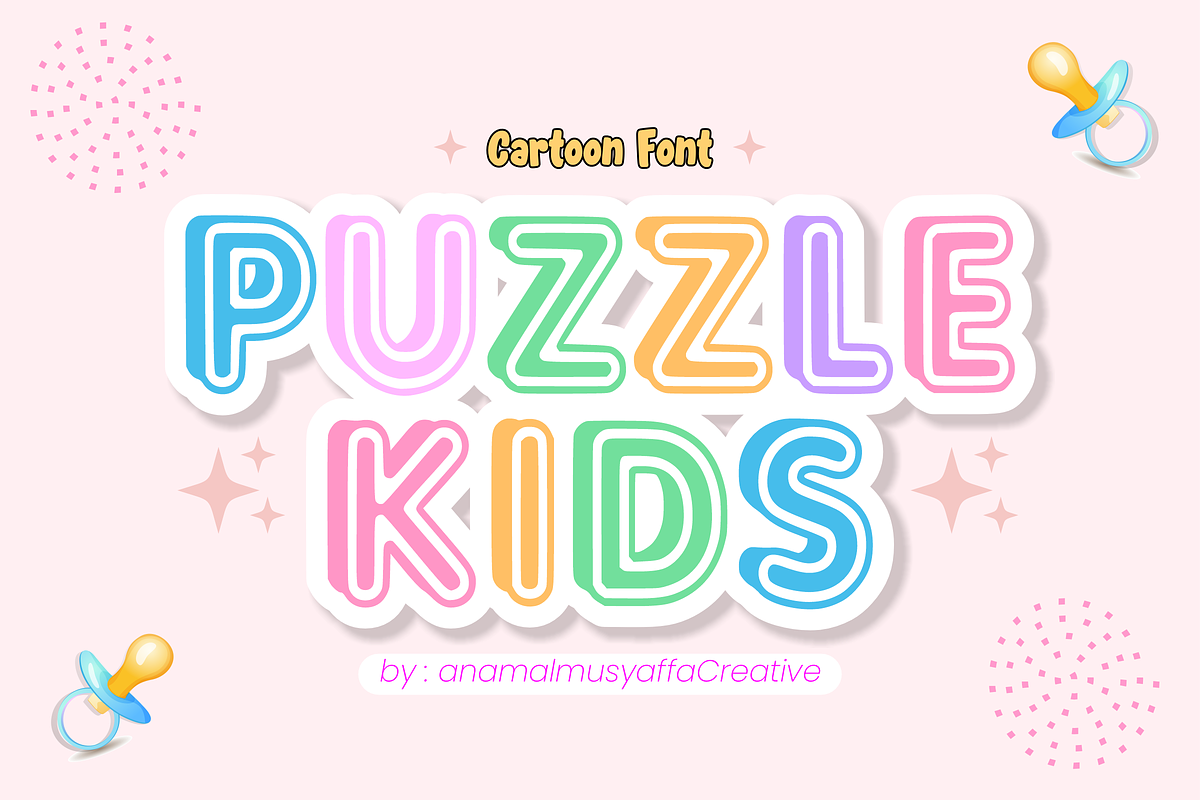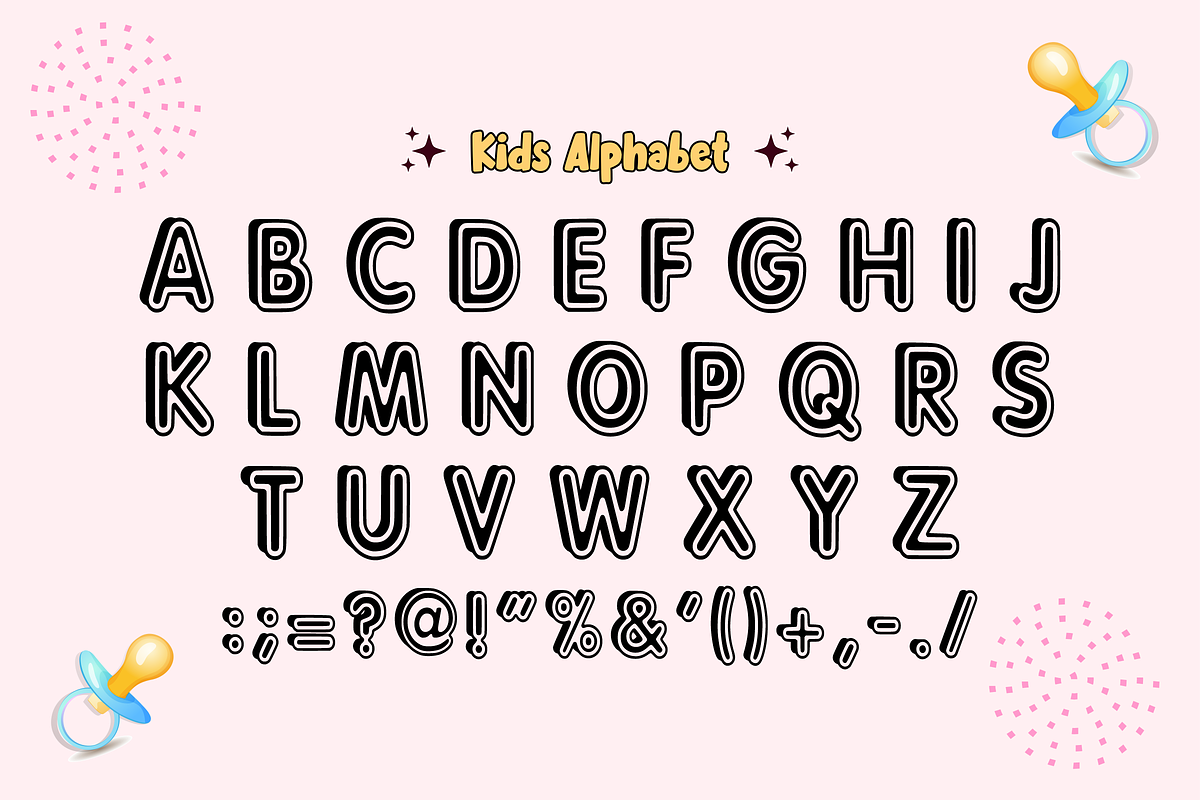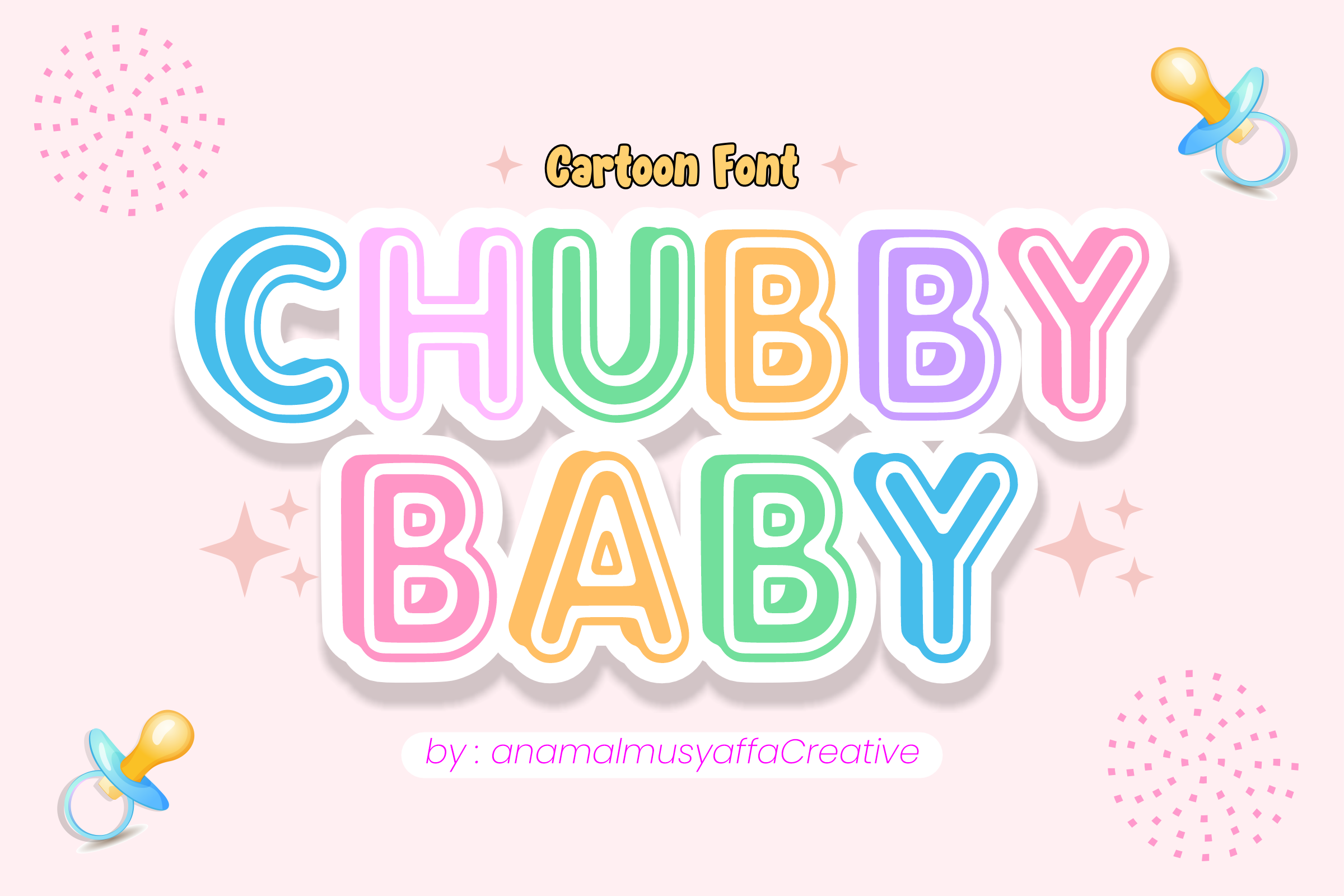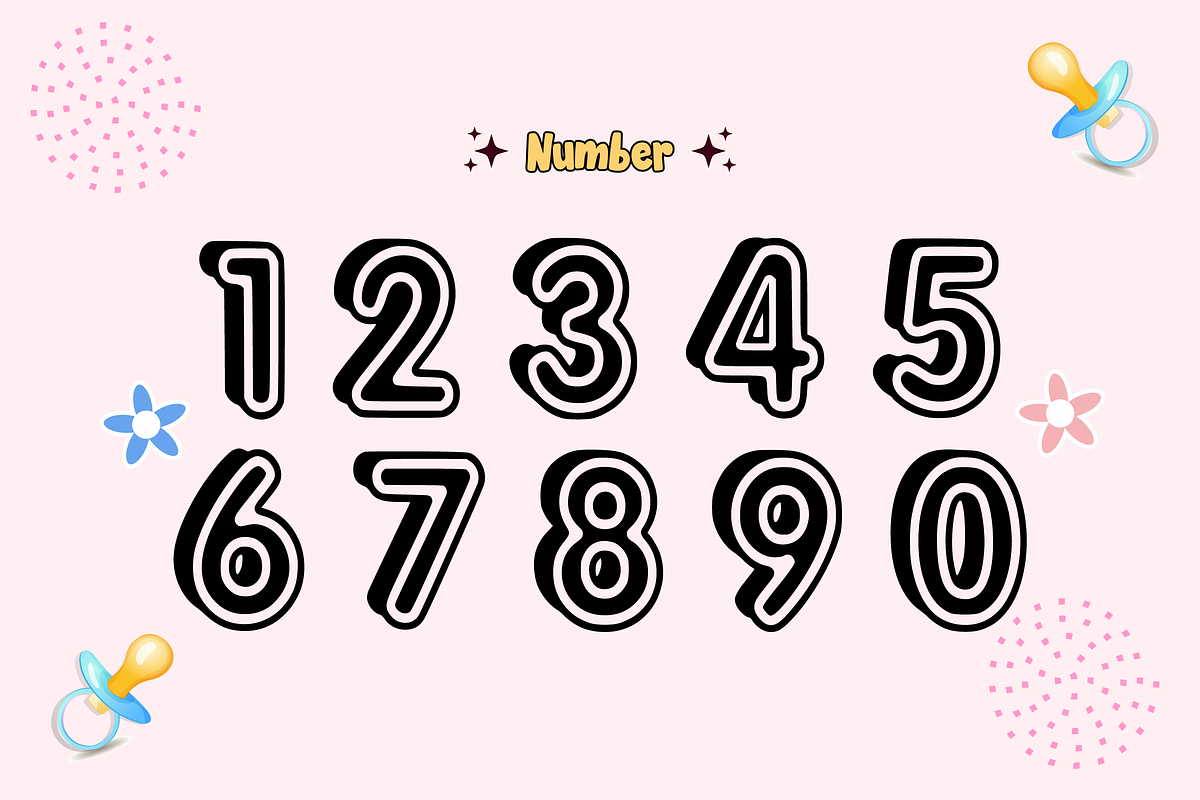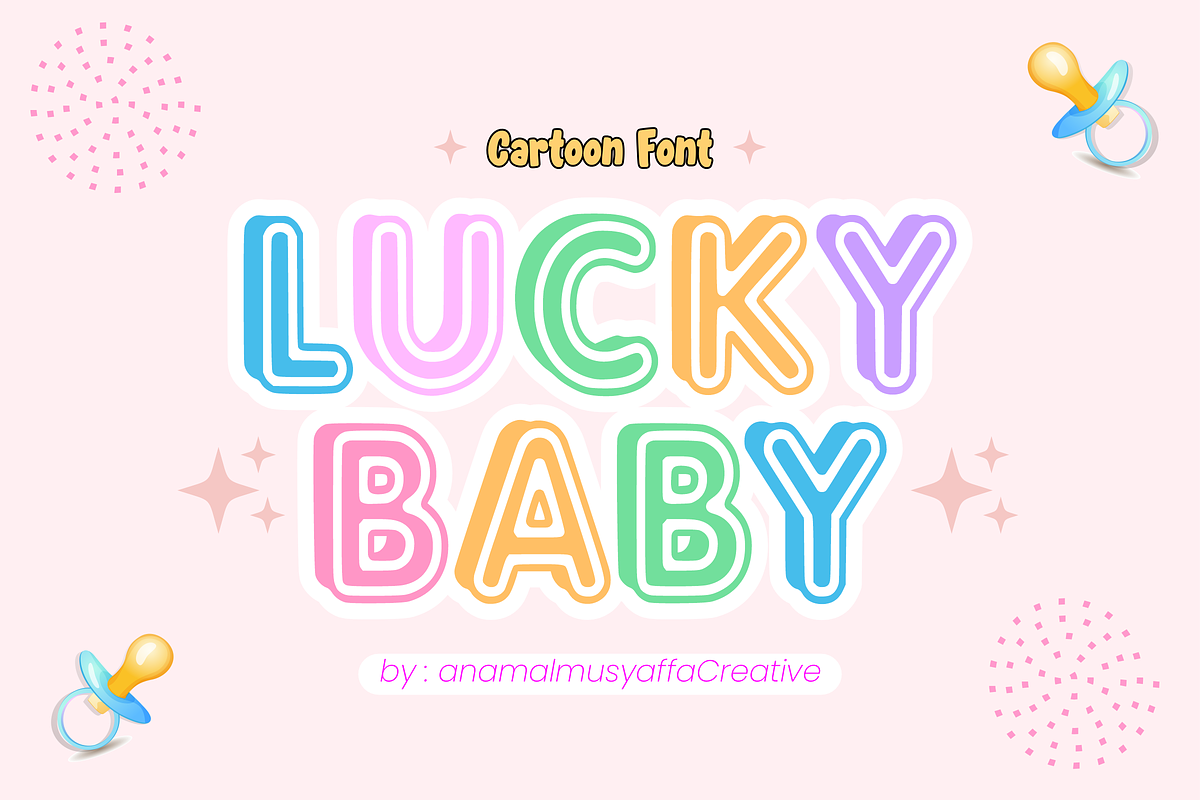
Chubby Baby - Display Font Types
Chubby Baby - Playful & Bubbly Cartoon Font 🍼✨ Bring a burst of joy to your designs with Chubby Baby! This font is designed with soft, rounded curves and a bold, "huggable" look that perfectly captures the essence of childhood fun. Whether you’re creating for a nursery, a birthday party, or a quirky brand, Chubby Baby adds that perfect touch of sweetness. 🍭🎈
It’s bold, it’s bubbly, and it’s ready to make your projects stand out!
What’s Included: Uppercase Letters (The star of the show!) 🔠
Numbers (0-9) 🔢
Essential Symbols & Punctuation ❗❓
Perfect For: 👶 Baby Shower Invitations & Nursery Decor
🎨 Kids' Book Covers & School Posters
👕 Custom T-shirts & Apparel
🧸 Toy Packaging & Logo Branding
📸 Social Media Graphics & Stickers
Give your projects a friendly and approachable vibe today with Chubby Baby! 🌈✨